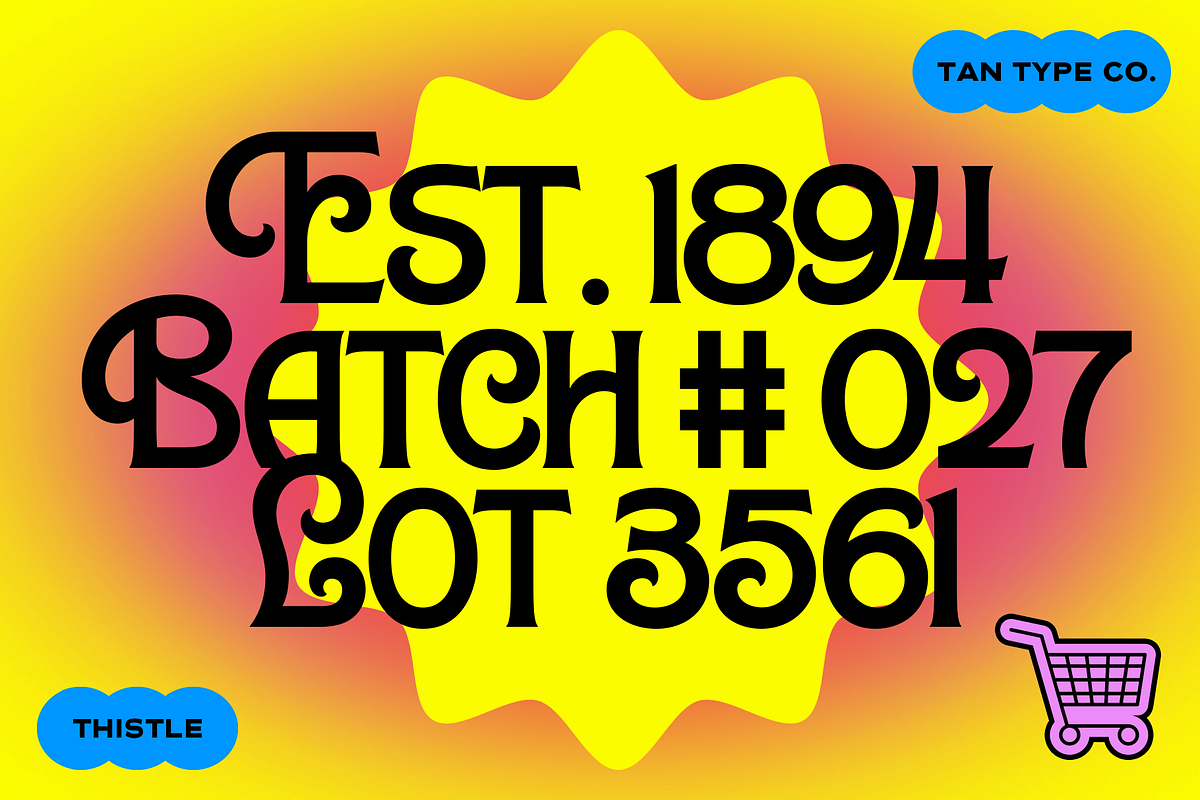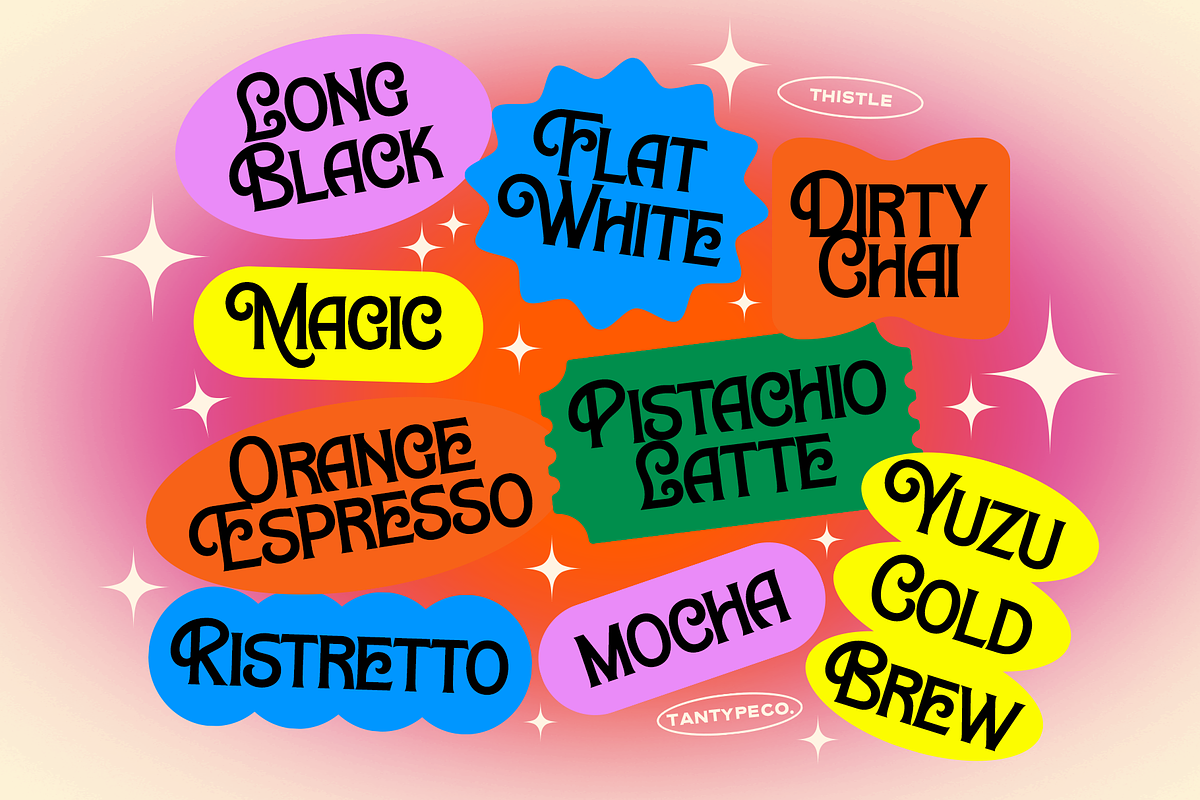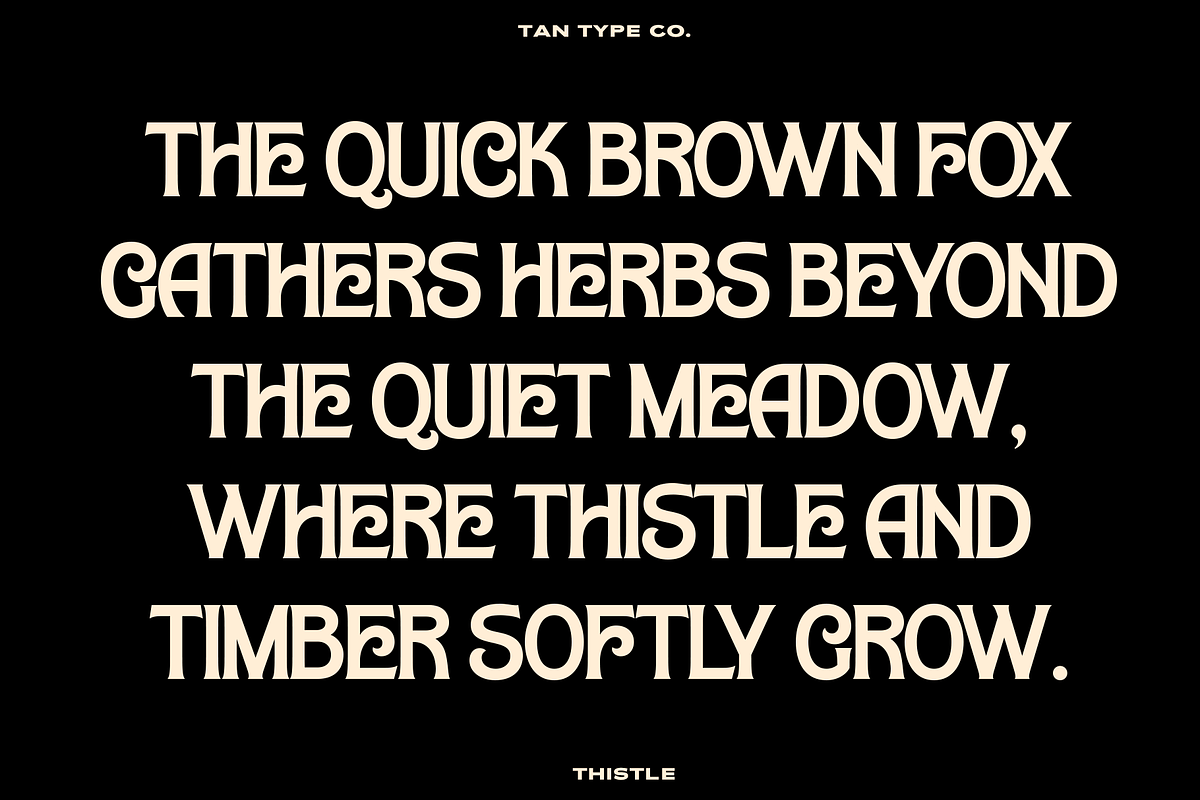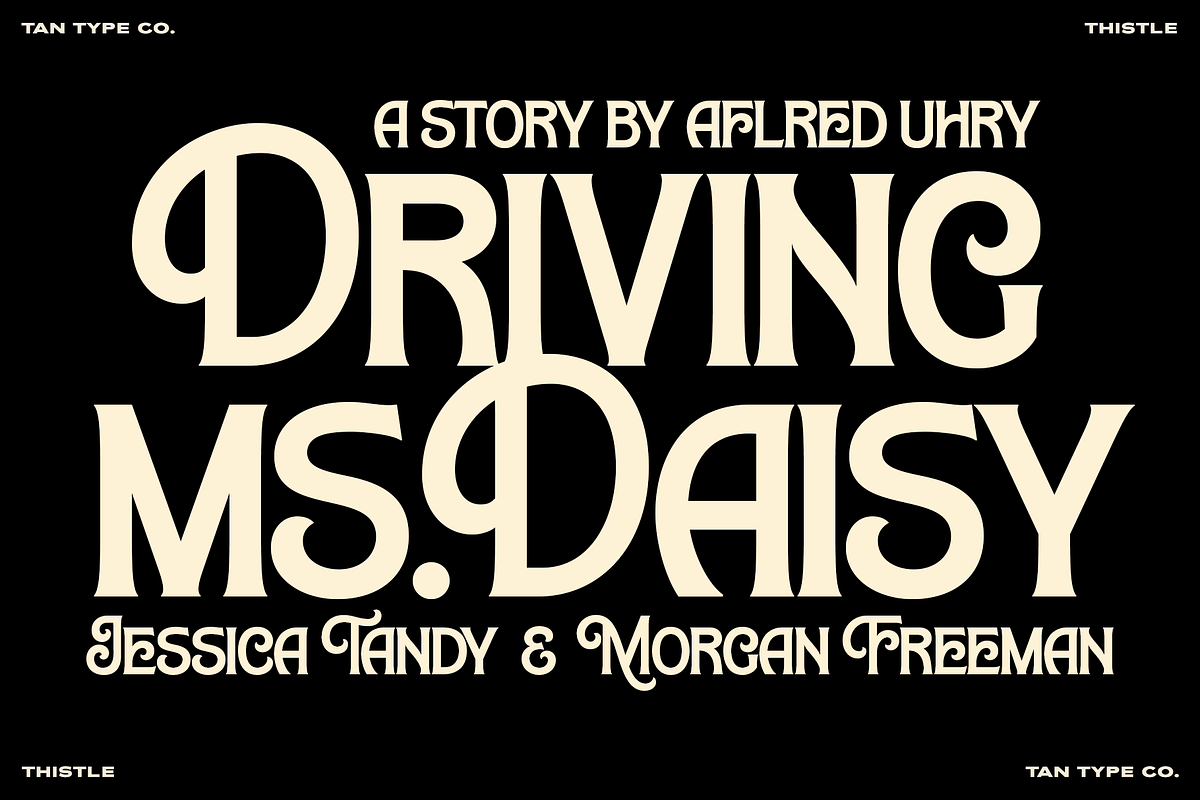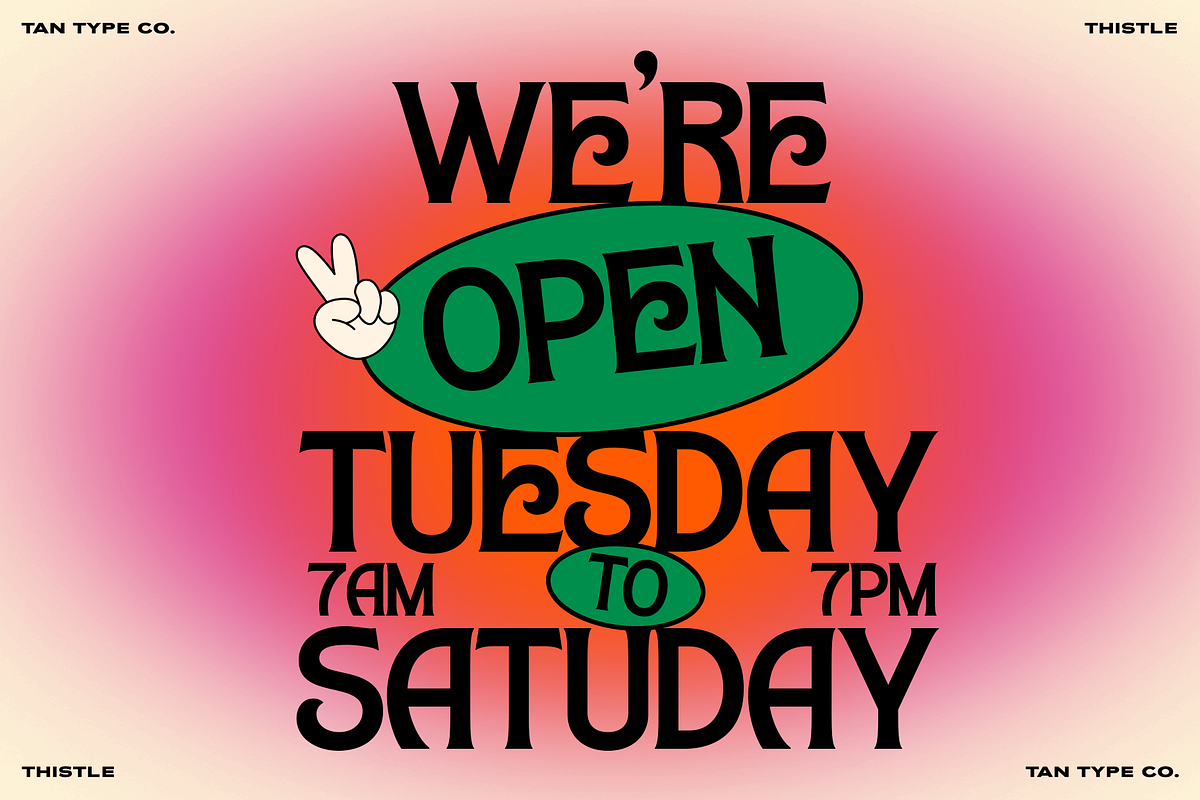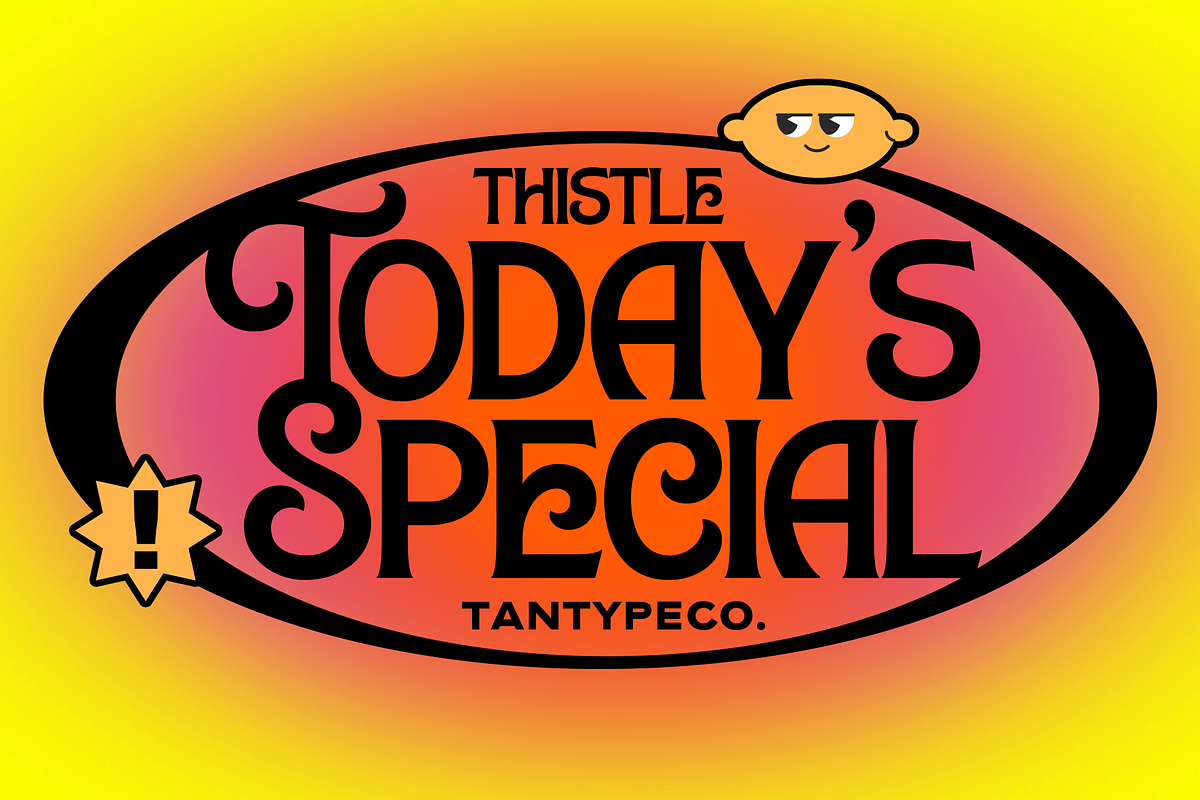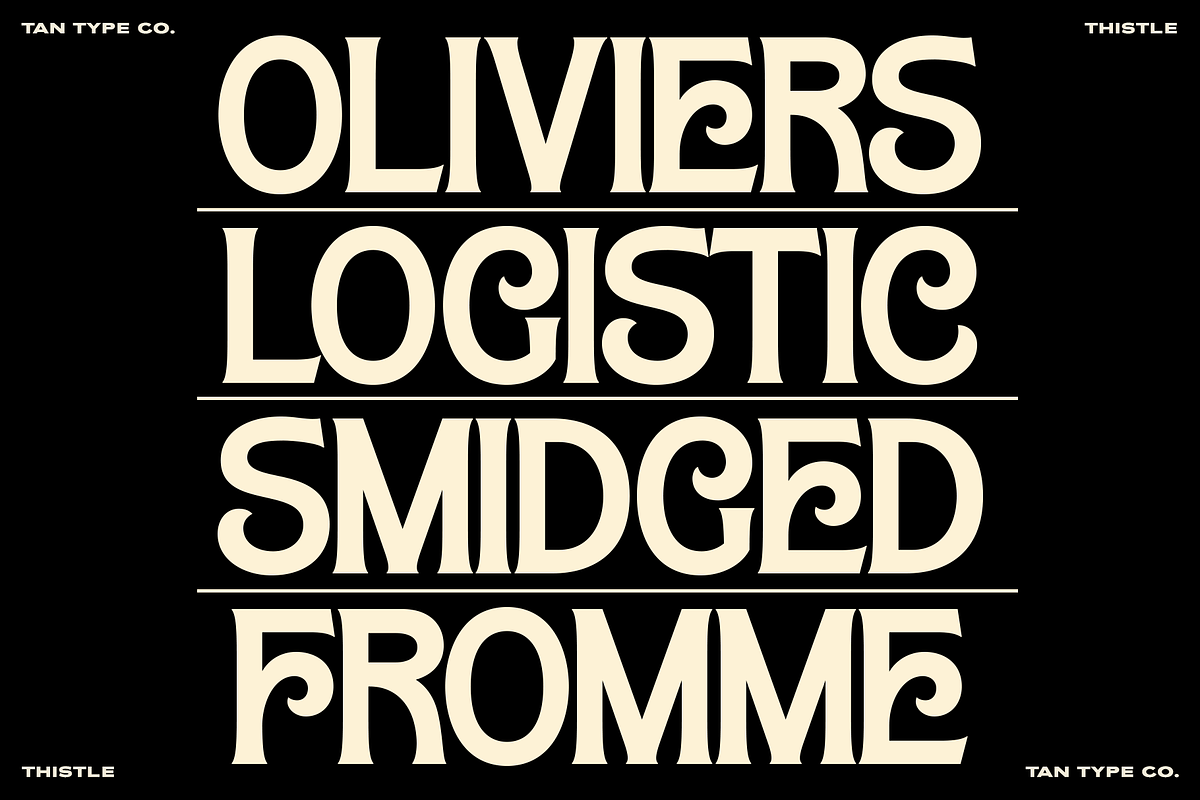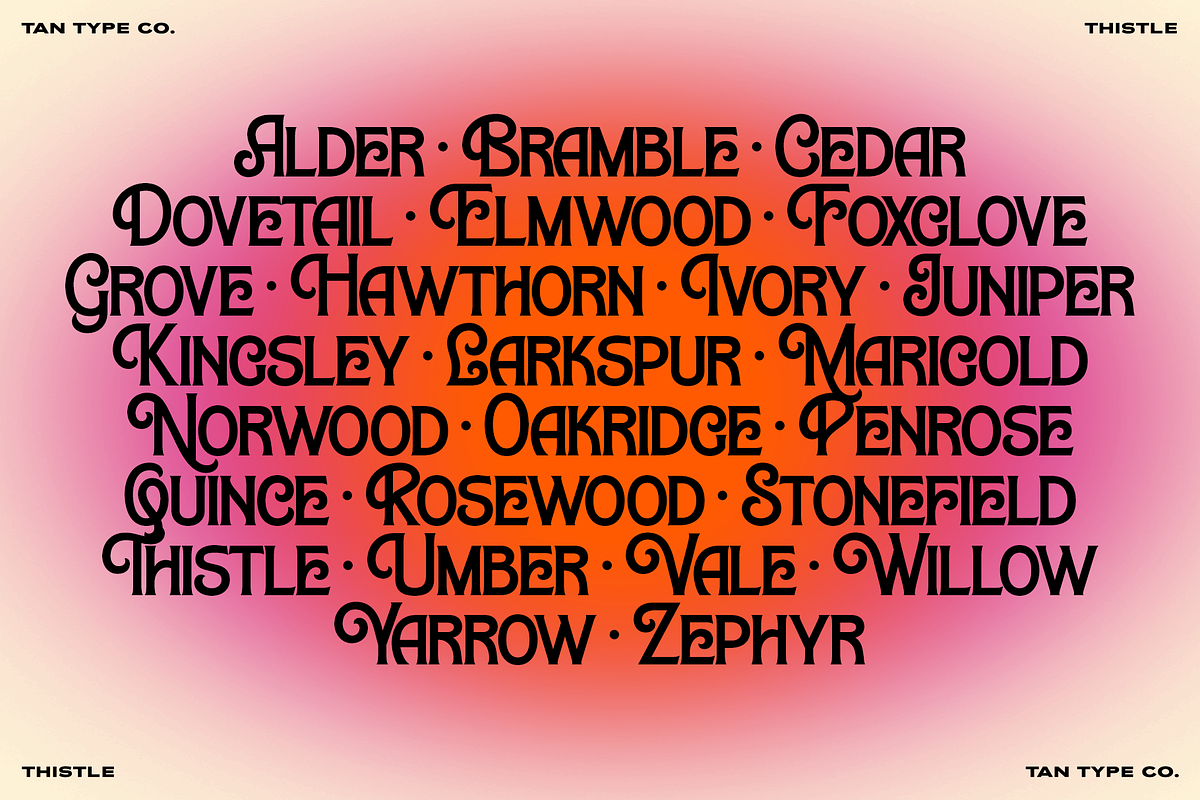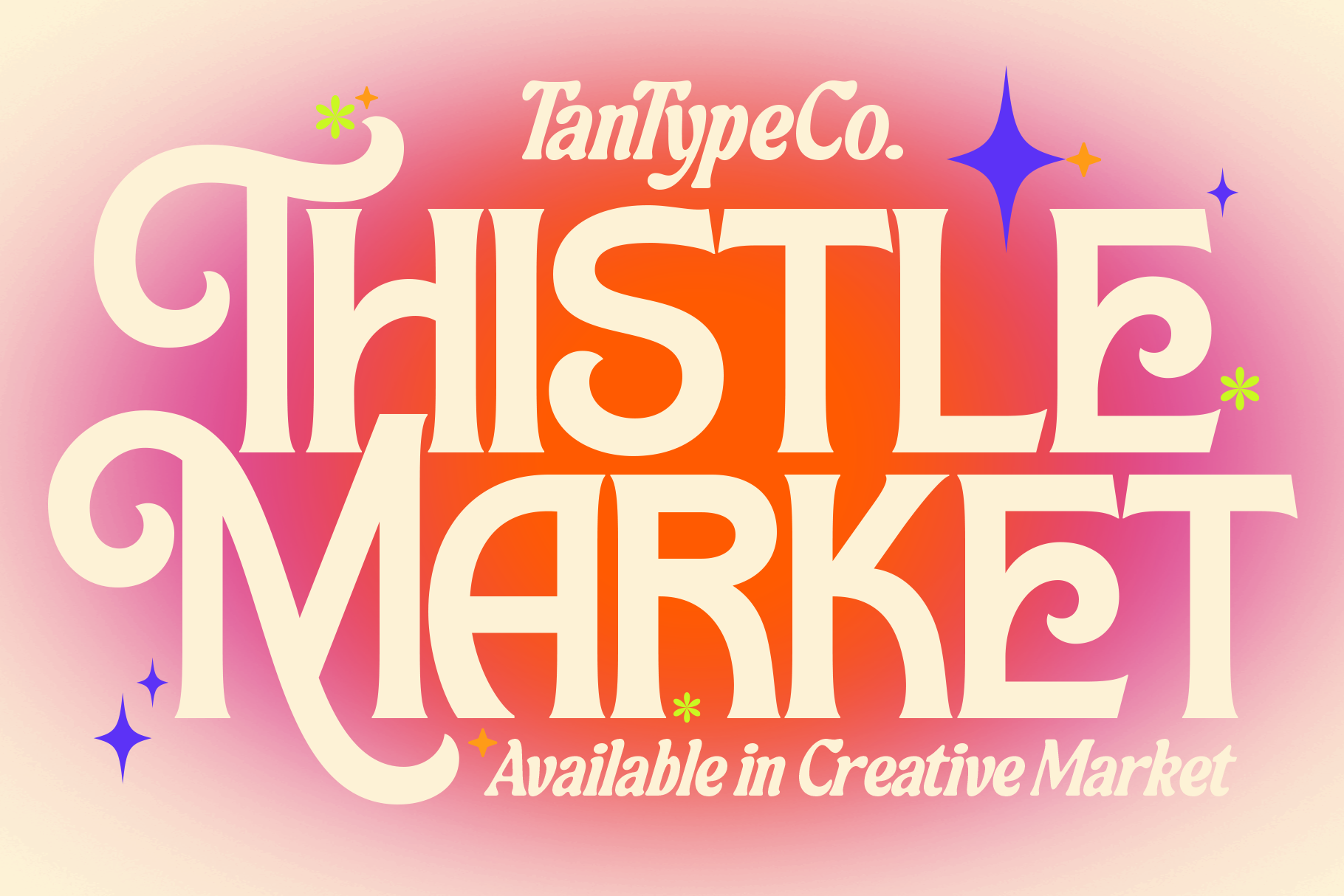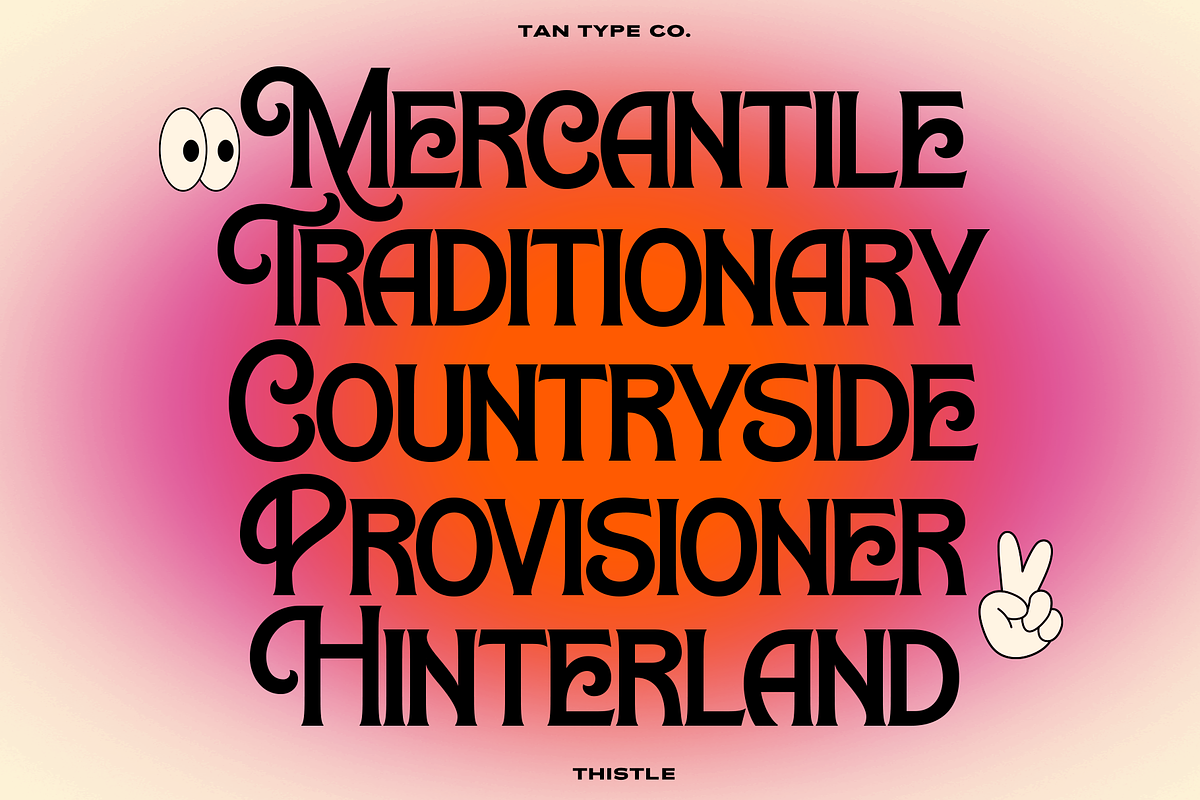
TAN-THISTLE-A DISPLAY FONT
Thistle is a bold display typeface with a distinct 70s personality. Thick strokes, sweeping curves, and capital letters that have just enough drama without going too far. The kind of type that feels confident without trying too hard.
Designed for headlines and big moments. Think food packaging, market branding, festival posters, cafe menus, anywhere the aesthetic needs to feel warm, a little retro, but still current.
The swash capitals are where the personality really comes through. Set a single word in Thistle and it tends to do most of the talking.